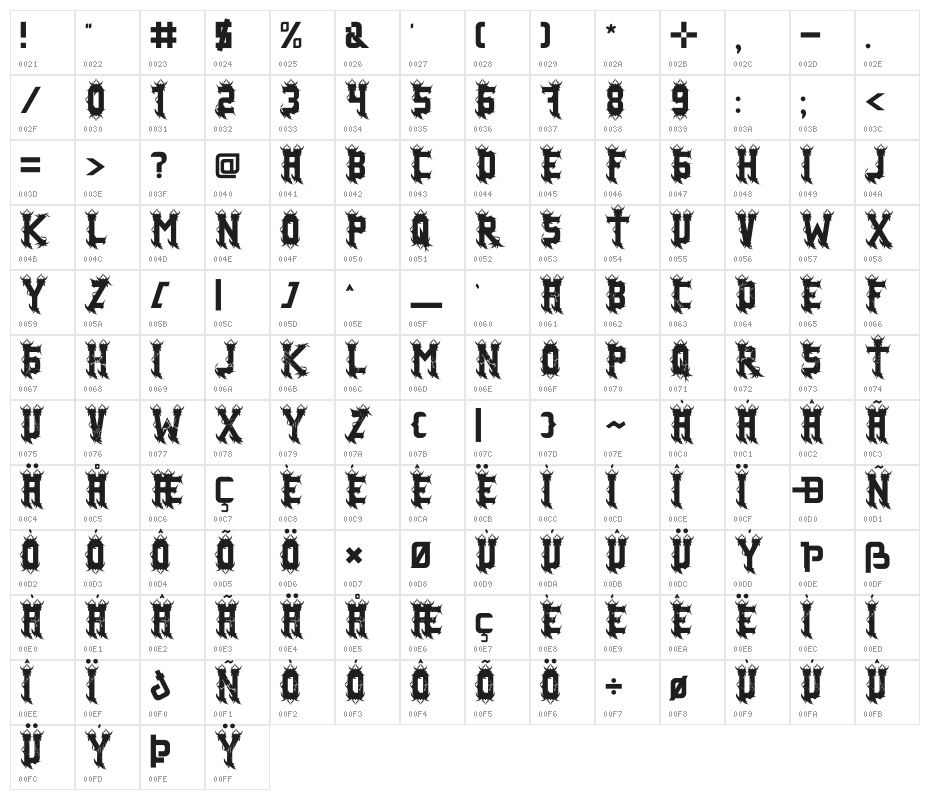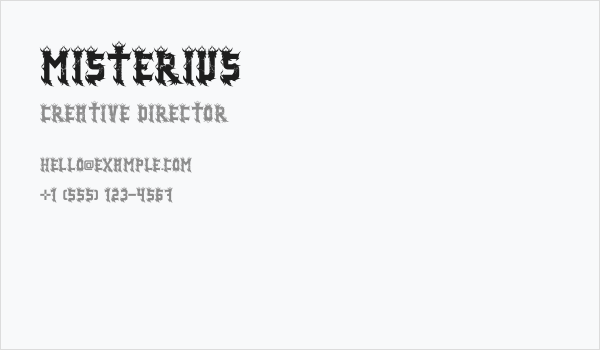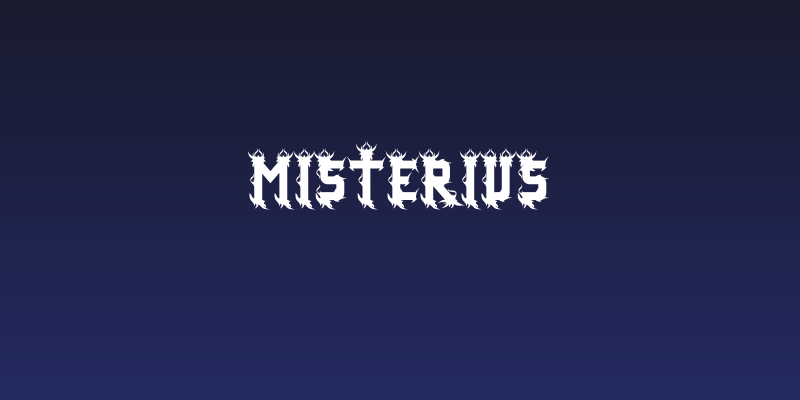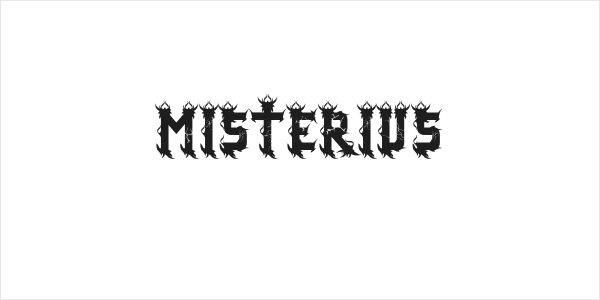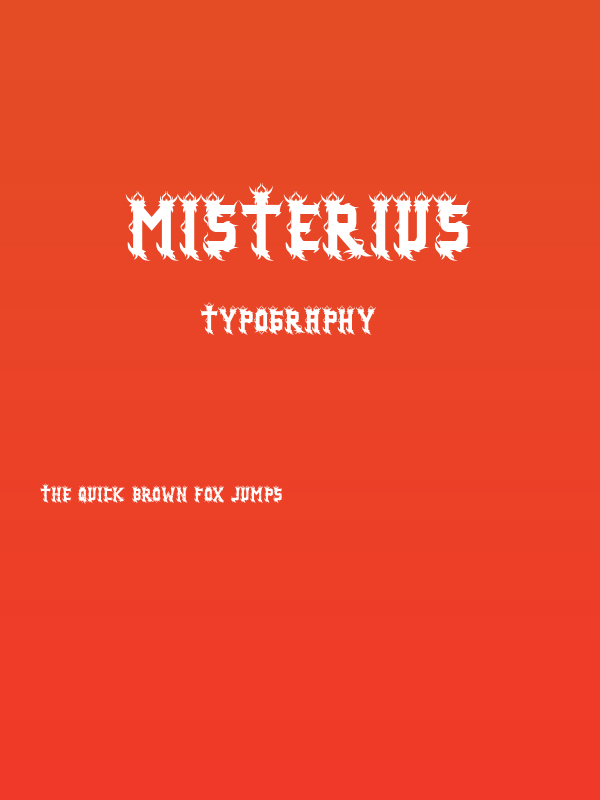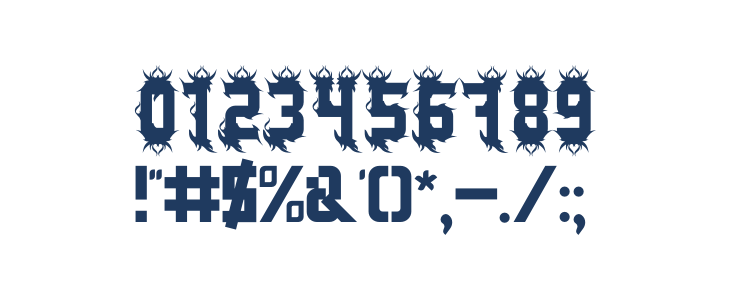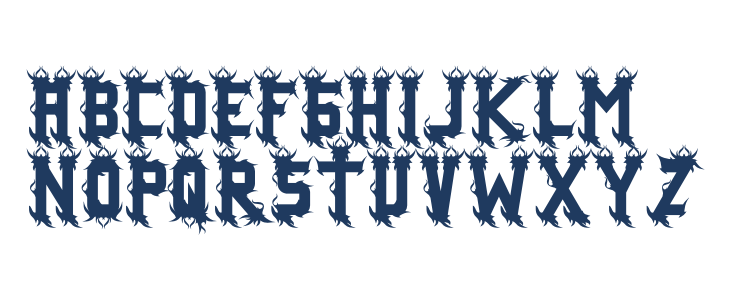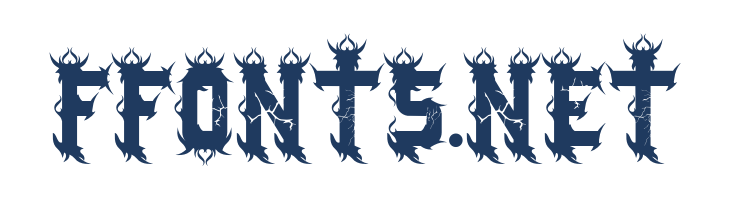
misterius Font
misterius Description
A highly decorative and bold display font featuring sharp, flame-like extensions on each character, giving it an intense and edgy appearance. The letterforms are geometric and angular, with consistent stroke thickness and dramatic embellishments.
| Overall Style | Decorative, Edgy, Gothic |
| Use Case | Logos, Headlines, Posters, Themed Graphics |
| Proposed Projects | Horror posters, Halloween event flyers, heavy metal band logos, video game titles, themed merchandise, tattoo designs. |